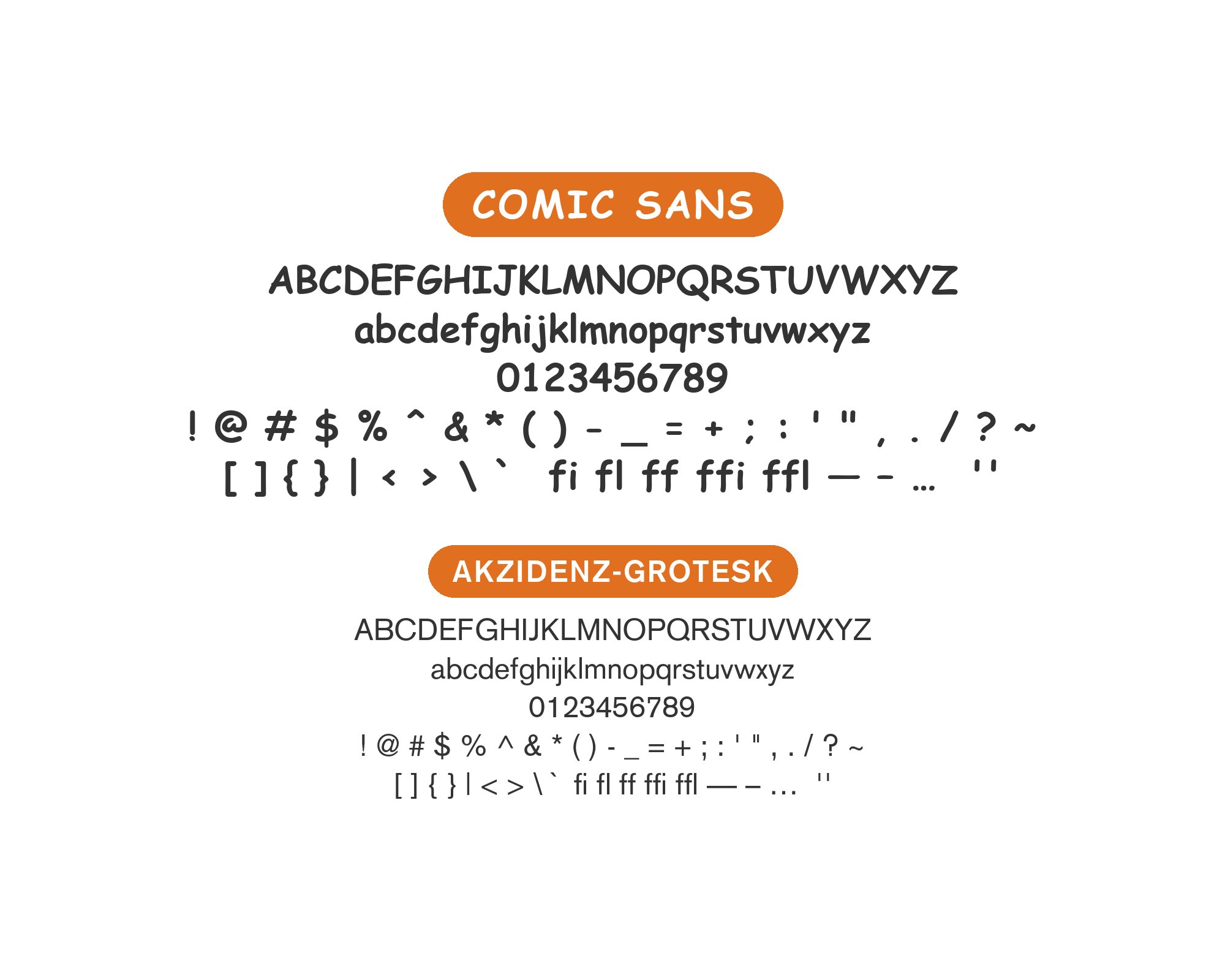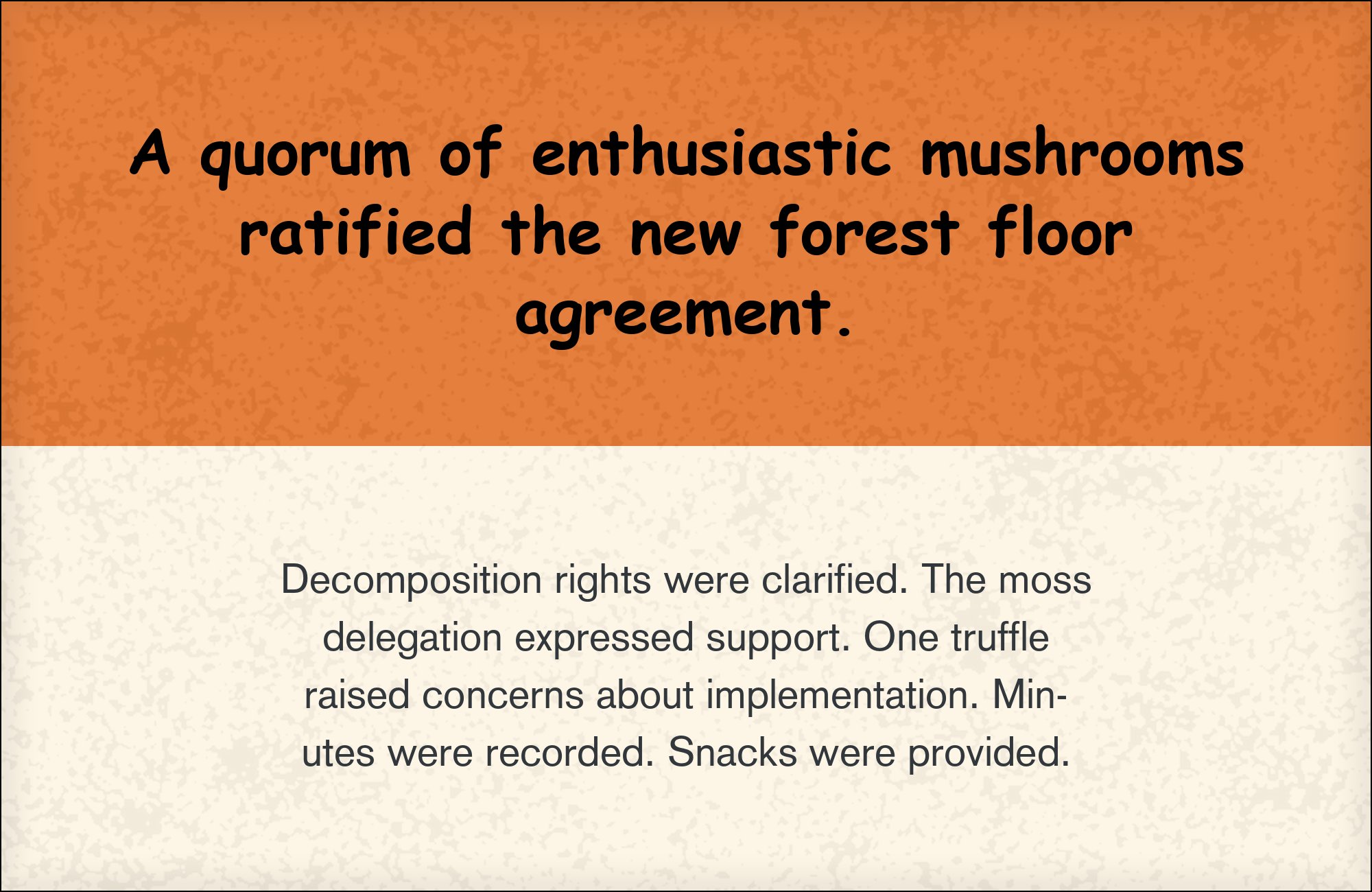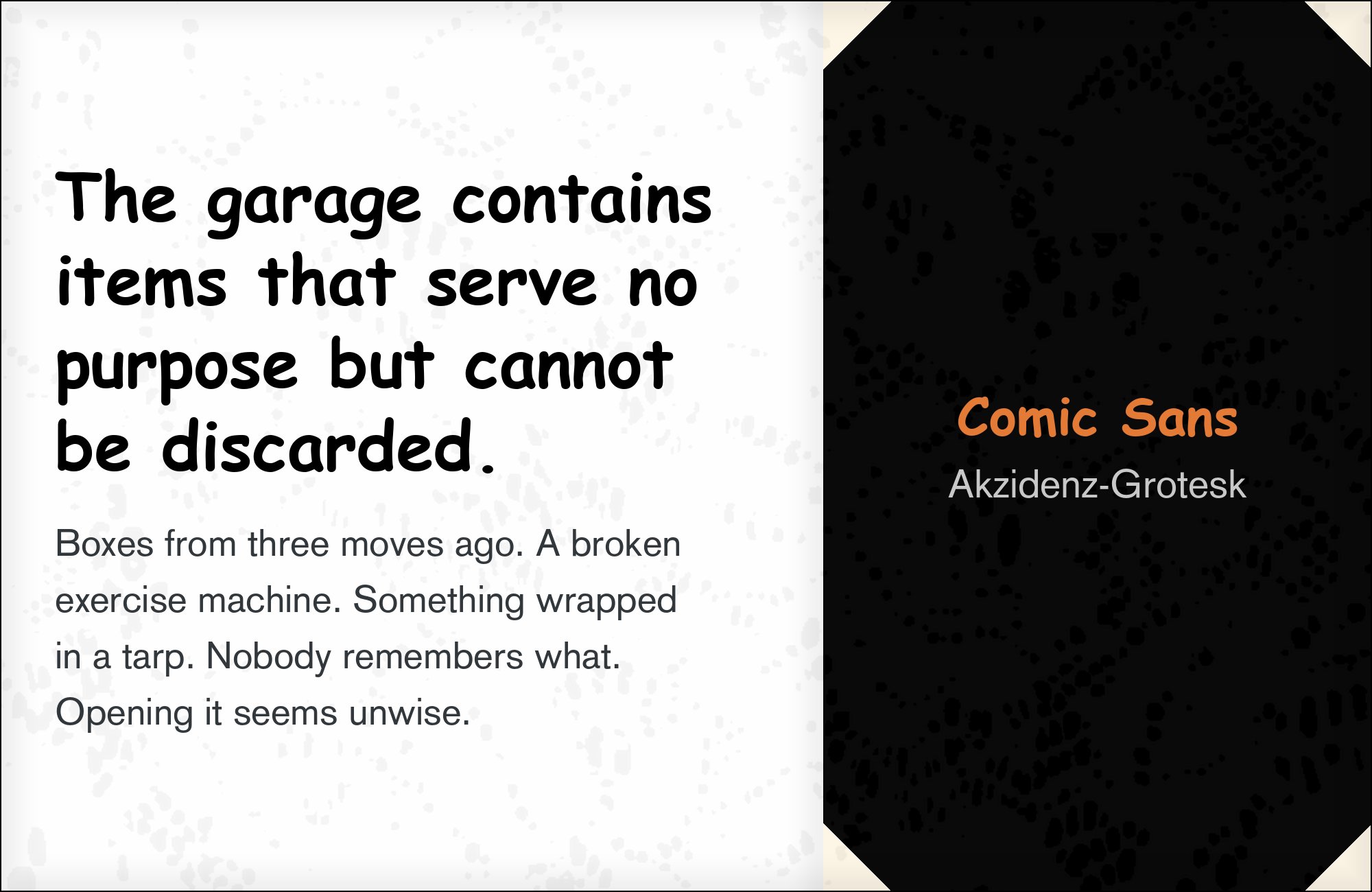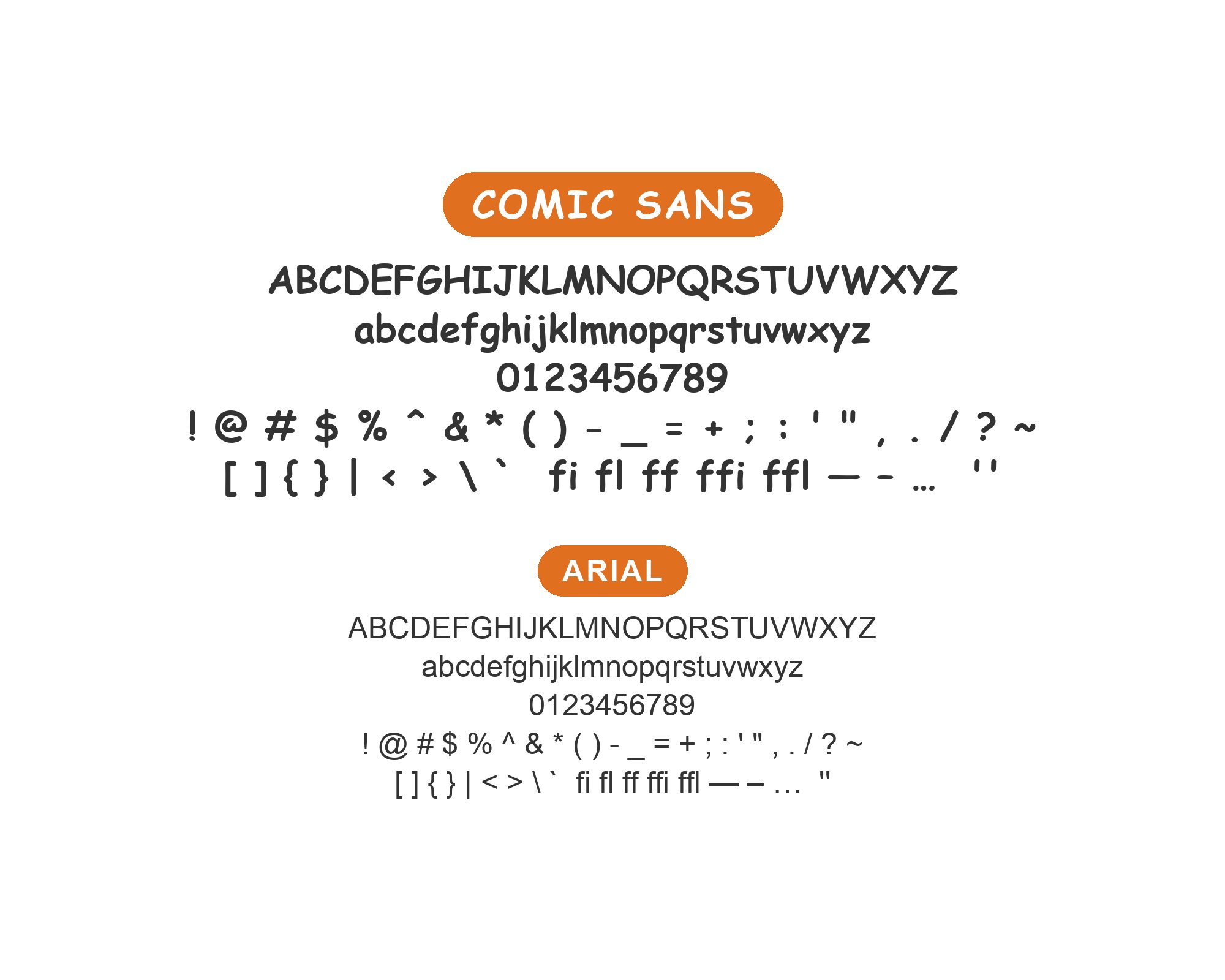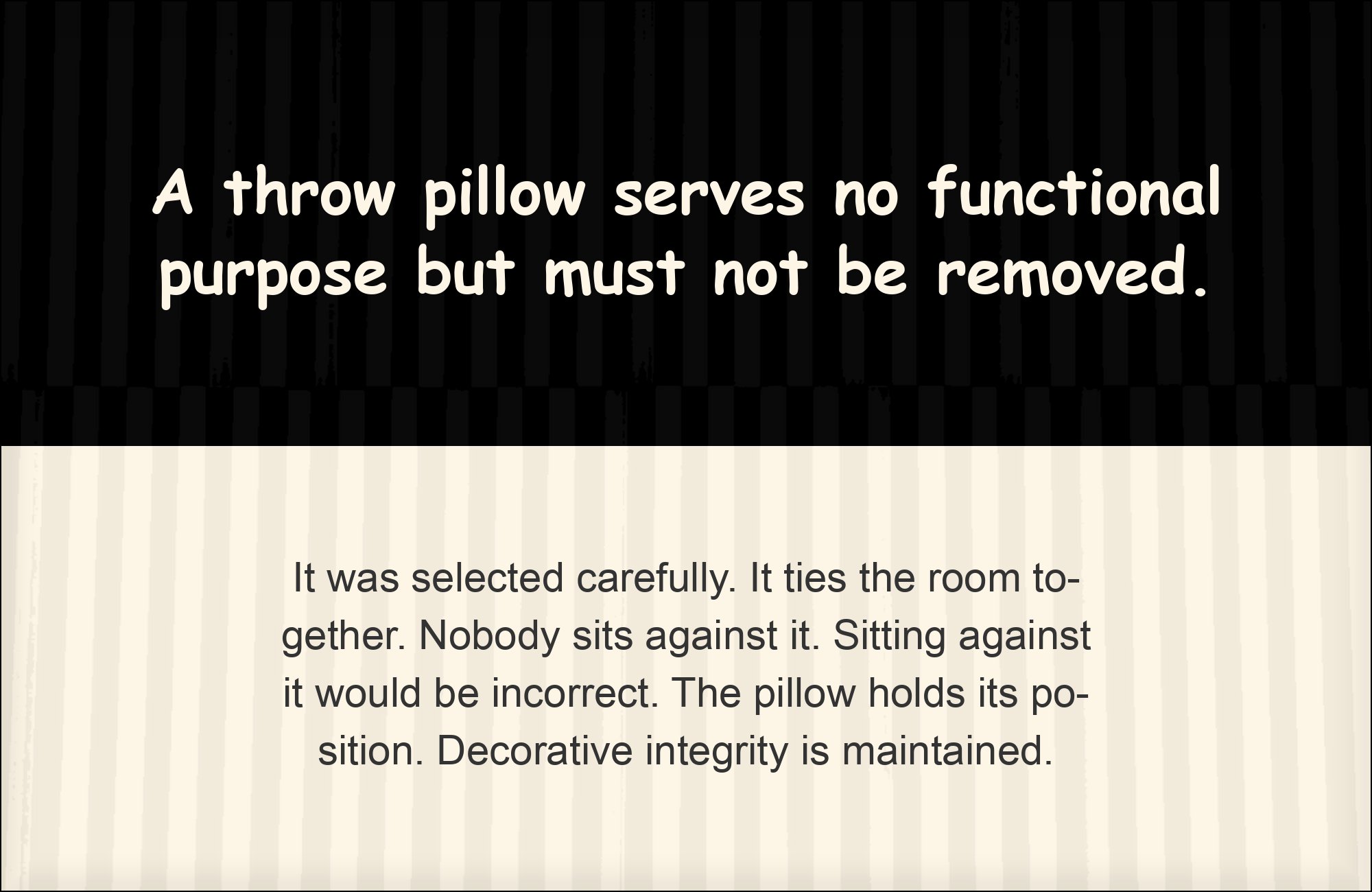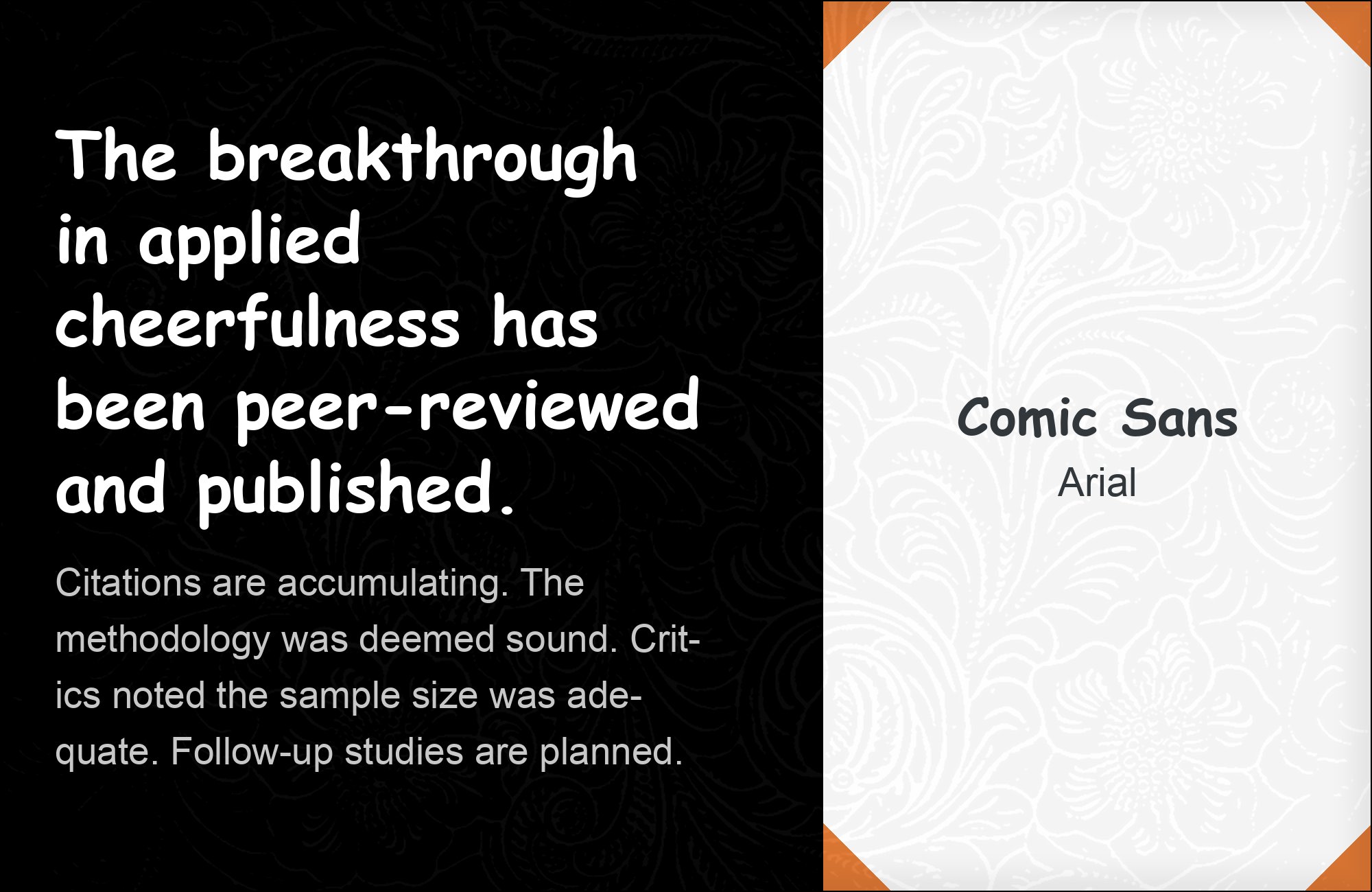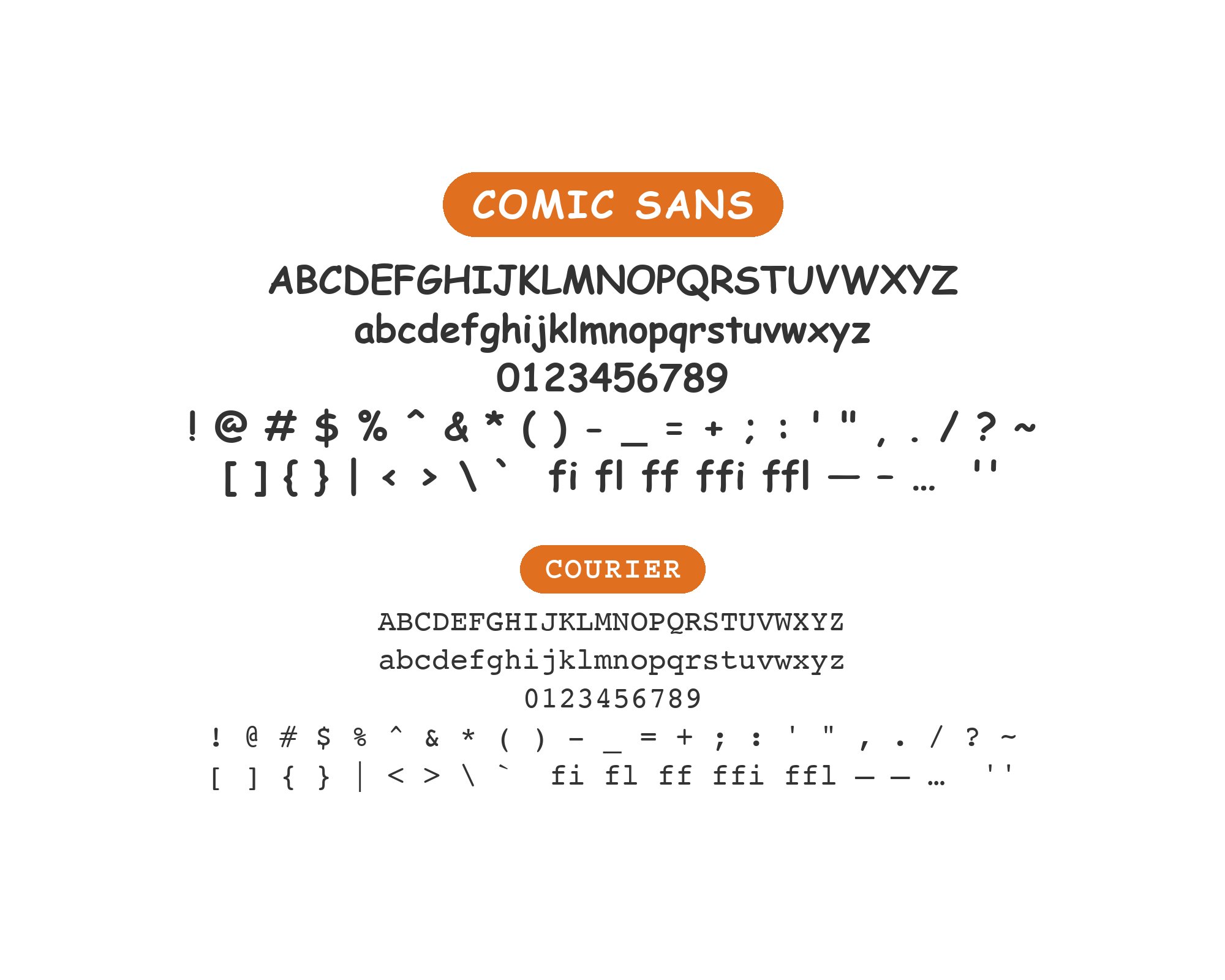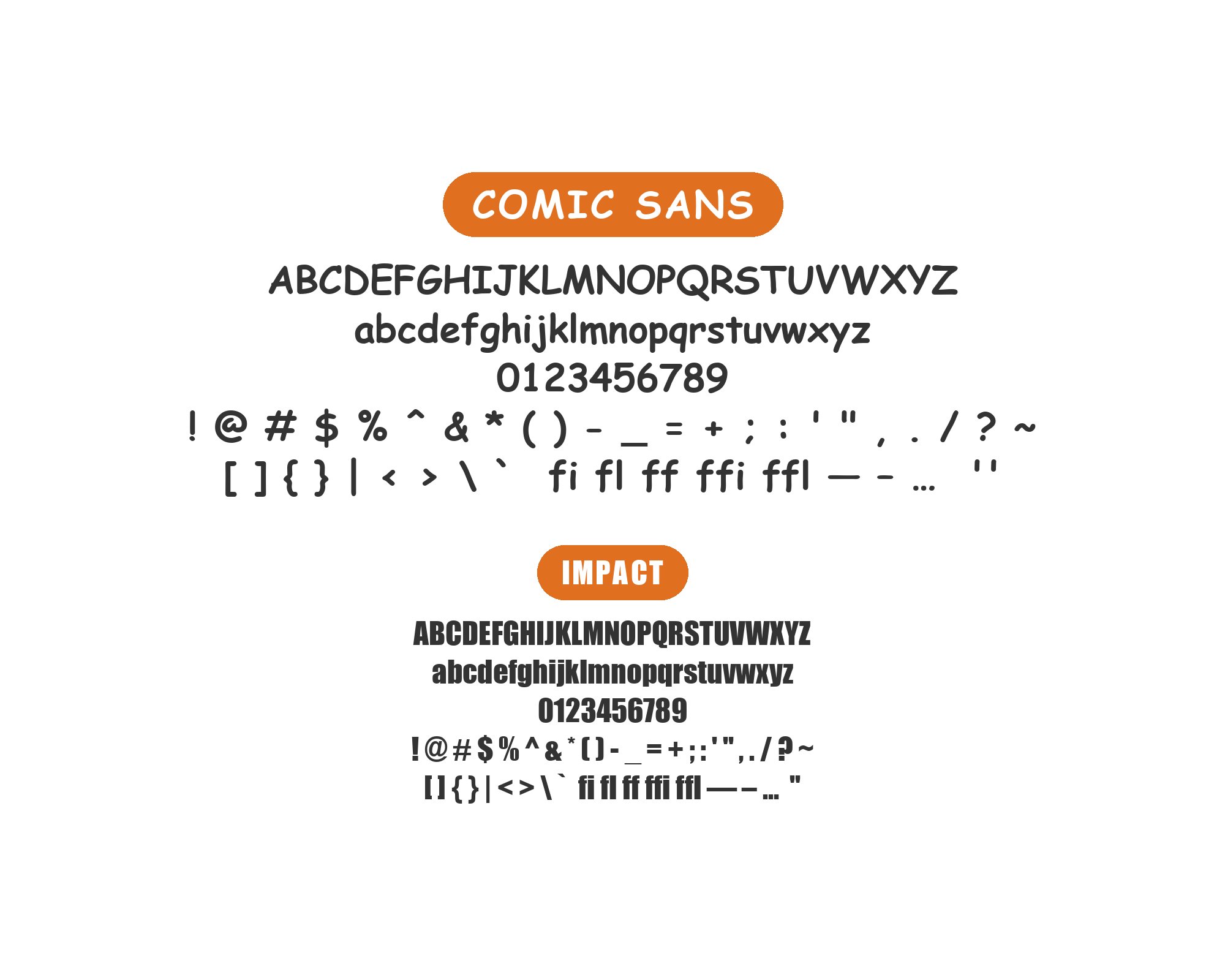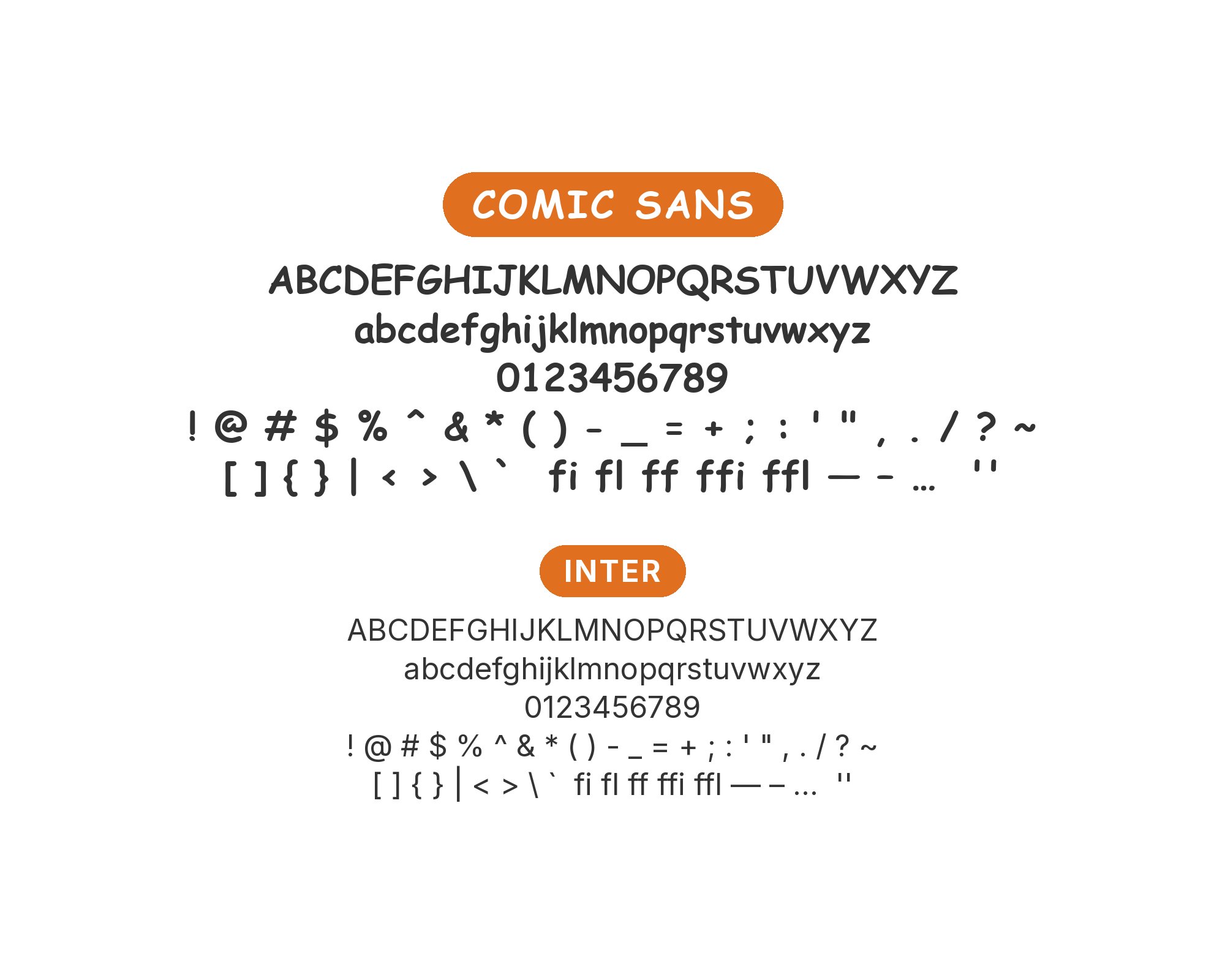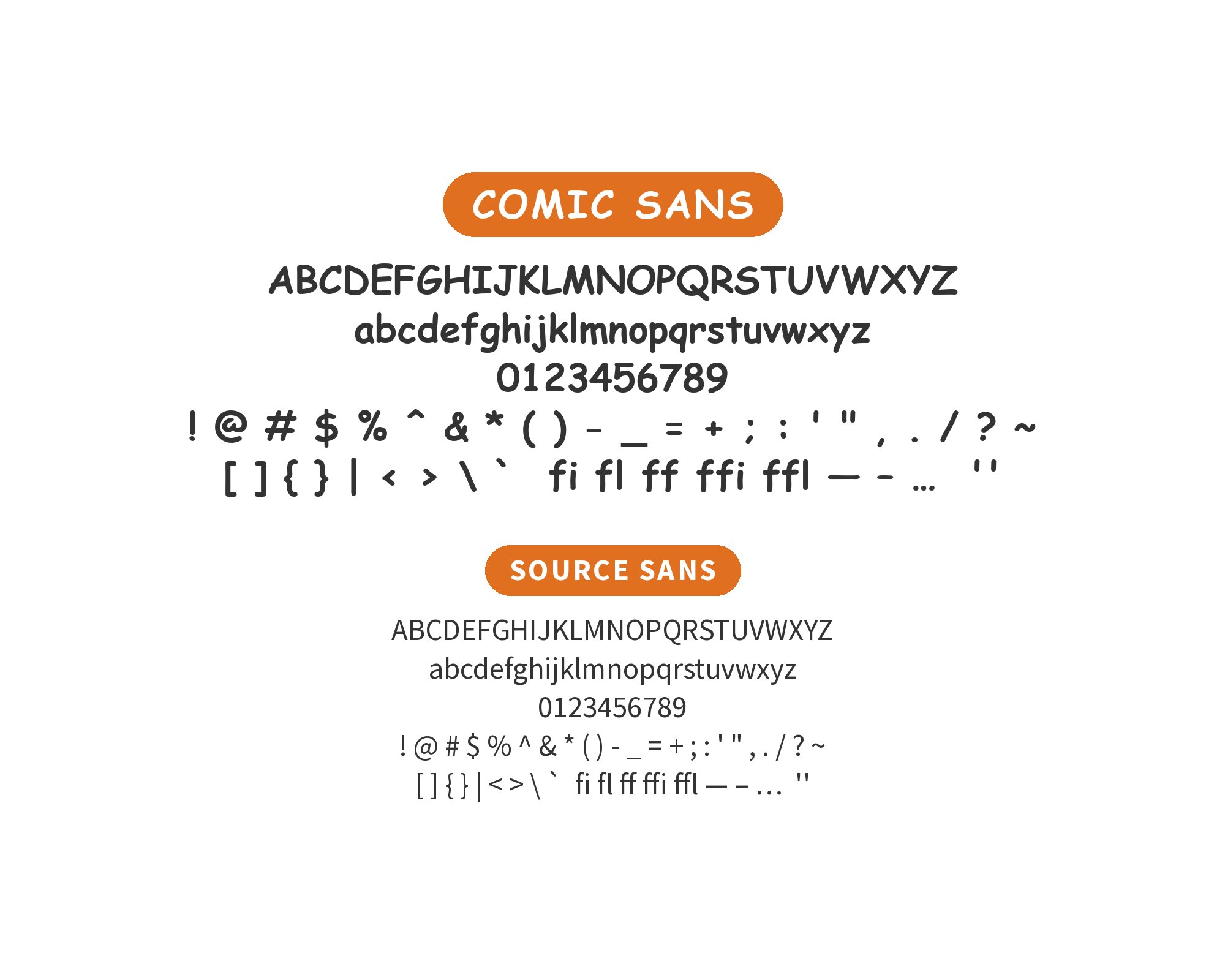
Comic Sans pairs great with Times New Roman, Courier and Sign Painter. All 12 pairings are shown below in real rendered specimens, with the reason each one works.
You’ve chosen Comic Sans. We can discuss that later. For now, let’s find it some responsible company. The honest typographic answer starts with what the face actually is: a casual script-derived sans built from the handwriting of comic-book lettering, not a failed attempt at a neutral grotesque.
Vincent Connare designed Comic Sans in 1994 after seeing a beta of Microsoft Bob, a consumer desktop-interface product whose cartoon guides spoke in Times New Roman, and he drew the letterforms from the hand-lettered speech balloons of The Dark Knight Returns and Watchmen; the face missed Bob’s ship date and reached the public with 3D Movie Maker and then the Windows 95 Plus! Pack. The outlines are irregular on purpose: bouncy baselines, open apertures, rounded terminals, and no contrast between thick and thin strokes. That informal construction is the whole design brief, and it is why the face remains recognizable long after its internet-era notoriety.
Because Comic Sans carries so much personality, every workable pairing assigns it one job — the friendly, human, hand-made voice — and gives everything else to a calmer partner. The evidence below comes from two directions: Typewolf’s curated suggestion and real-site co-usage, plus the Fonts In Use archive’s production records. Between them, designers put Comic Sans next to monospaced typewriter serifs, poster-weight grotesques, and quiet humanist sans faces. Here are 12 obtainable fonts that pair with Comic Sans, ranging from common system faces to commercial families.
In practice the split runs on size and register: Times New Roman from 10 to 12 points for anything a reader signs or agrees to, Comic Sans at headline sizes where its bounce does the persuasion. Because both faces ship everywhere, the system survives email, print, and Office documents without embedding — which is why the pairing has outlived every trend piece written against either face.
Stanley Morison directed the design and Victor Lardent drew the letterforms of Times New Roman, commissioned by The Times of London and published in 1932, and every version of Windows since 3.1 includes it. This is Typewolf’s own suggested pairing, and the reasoning holds: Times New Roman’s bracketed serifs and moderate stroke contrast read as institutional and formal, exactly the register Comic Sans cannot supply. Set the serif wherever authority matters — terms, prices, instructions — and let Comic Sans stay the friendly voice. The two already live together on every Windows machine, which makes this the zero-cost default when the design wants warmth plus weight.
2. Courier
Set Courier sparingly — a receipt, a date stamp, a quoted note — because monospaced text pages poorly at length. At 12 points against 16-point Comic Sans headlines the two textures read as a filed document beside a written one, and the informal register of both faces keeps the layout from tipping into irony.
Howard “Bud” Kettler drew Courier for IBM in 1955 as a monospaced typewriter face, and the evidence for this pairing is specific: Typewolf documents a real site where Courier, Comic Sans, Sign Painter, Impact, and Plantin all share a single design. Courier’s fixed advance width and slab-like serifs read as “typed memo” against Comic Sans’s “handwritten note.” Both faces are earnest and unpolished by design, so the pairing never pretends to be elegant — it reads as honest, everyday, workshop-grade communication, which is precisely the register most Comic Sans projects want.
3. Sign Painter
The discipline that makes this pairing work is scale separation: Sign Painter only at display sizes above 40 points, where its brush curves breathe, and Comic Sans at 14 to 20 points for supporting lines. Run both at mid sizes and the two casual voices blur; keep a 2:1 size gap and each face stays clearly the master of its own layer.
Sign Painter is House Industries’ brush-script family; its House Showcard member was designed by Ken Barber and released in 1999. SignPainter is bundled with macOS and is documented in co-usage with Comic Sans on the same Typewolf-recorded site. Its casual, hand-drawn display forms share Comic Sans’s hand-made intent, but at poster scale and with a swinging brush rhythm Comic Sans’s uniform strokes never copy. The split is degree rather than kind: Sign Painter shouts the hand-made headline, Comic Sans whispers the friendly follow-up. Two vernacular voices in one system is a bold move, but this is the documented way to do it.
Find Out How4. Impact
Keep Impact to five words or fewer. Its condensed mass exhausts the eye quickly, and Comic Sans underneath supplies the recovery — headlines that shout, subheads that smile. The pairing earns its keep on event posters and promo graphics where the message must land from across a room and then read as friendly up close.
Geoffrey Lee drew Impact in 1965 for the Stephenson Blake foundry, and its ultra-heavy condensed grotesque forms became the internet’s meme typography — a history it shares with Comic Sans. The pairing is pure function: Impact’s poster weight gives the layout a spine, and Comic Sans softens everything the heavy face would otherwise shout. Both faces appear together on the Typewolf-documented site, which proves the combination survives contact with real production. Use it wherever a friendly message needs a loud delivery.